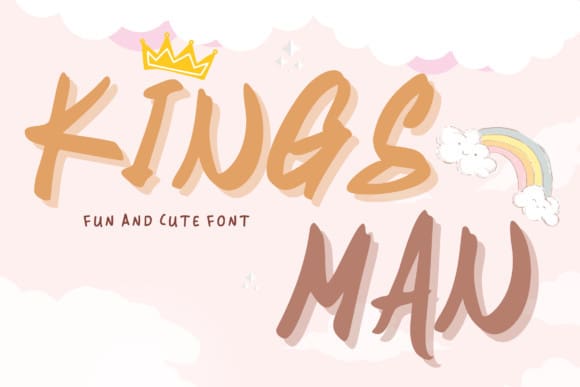
Kings Man Font
Kings Man Font is a strong, street-friendly brush font bursting with spirit. With extra attention to natural strokes and sharp details, KingsMan is ideal for logos, apparel, quotes, product packaging, or anything which needs a typographic turbo-boost.